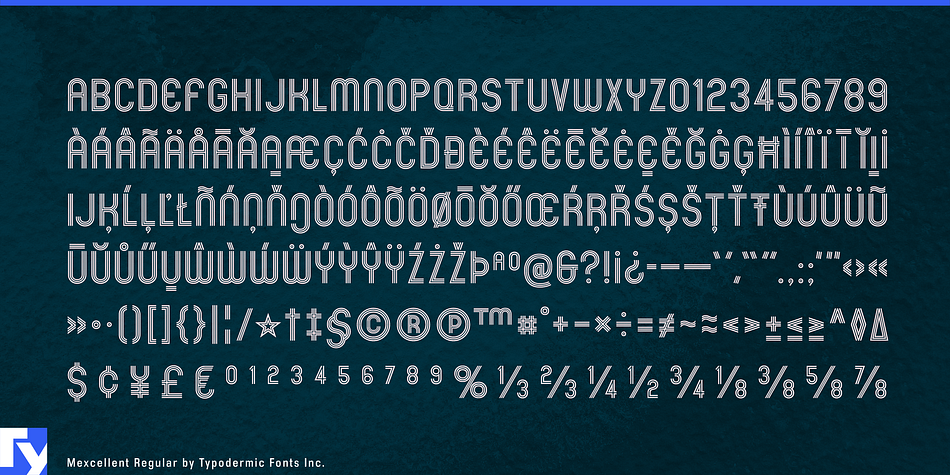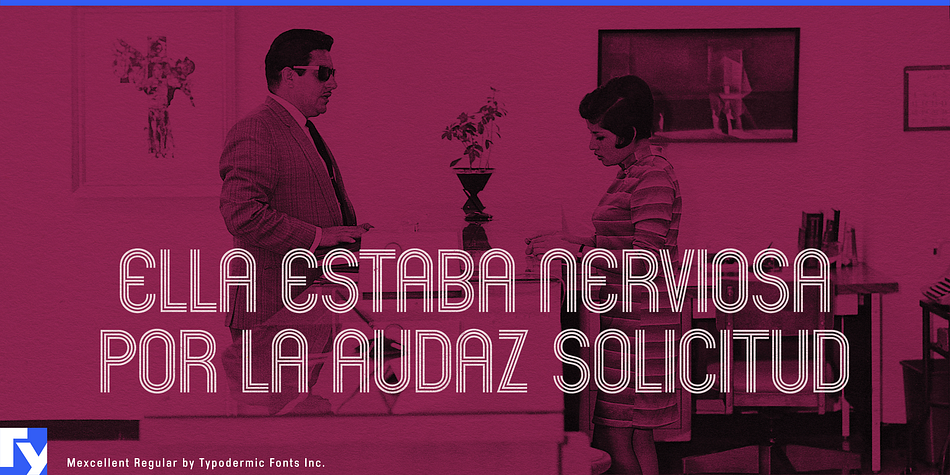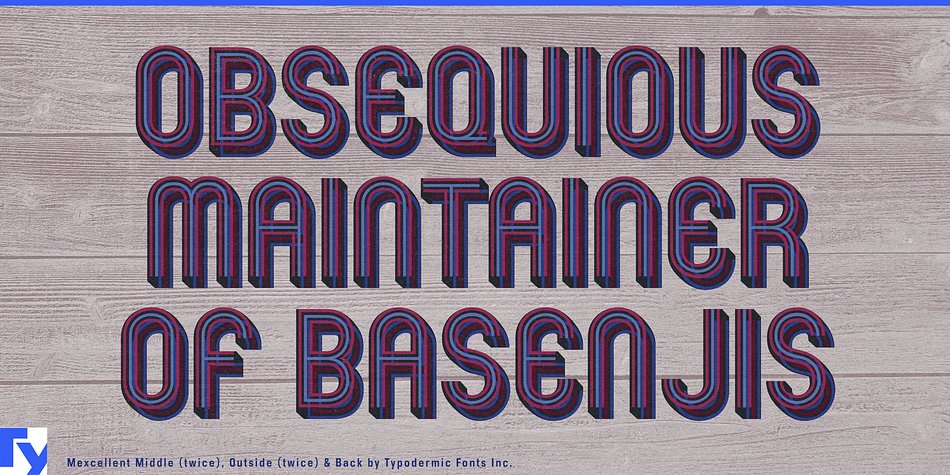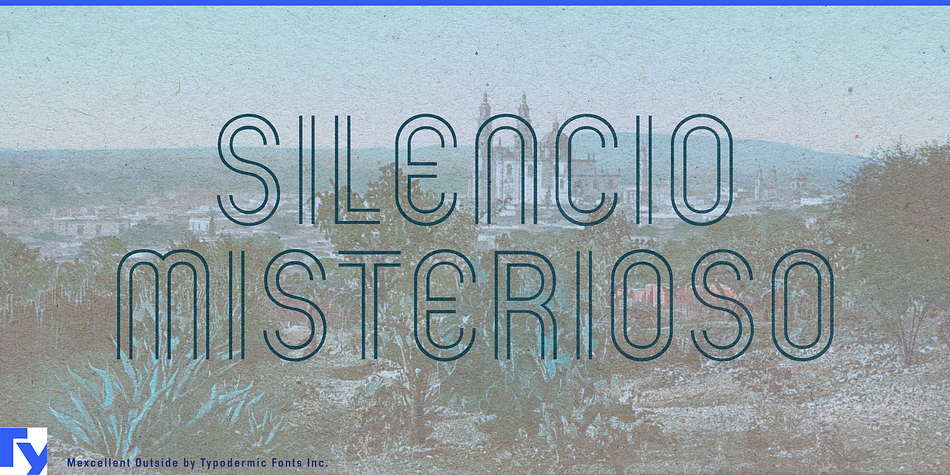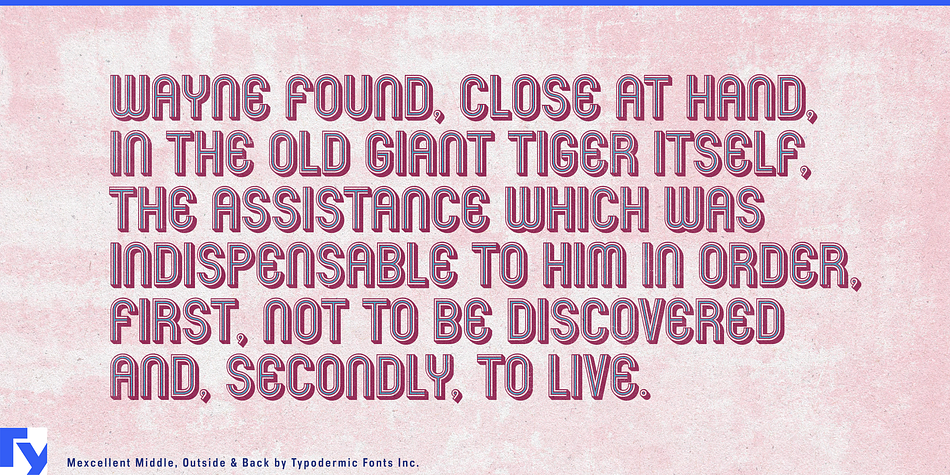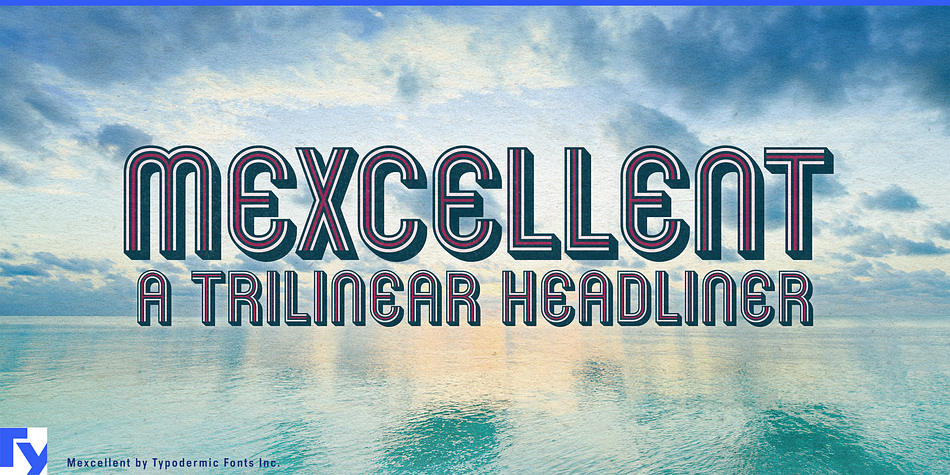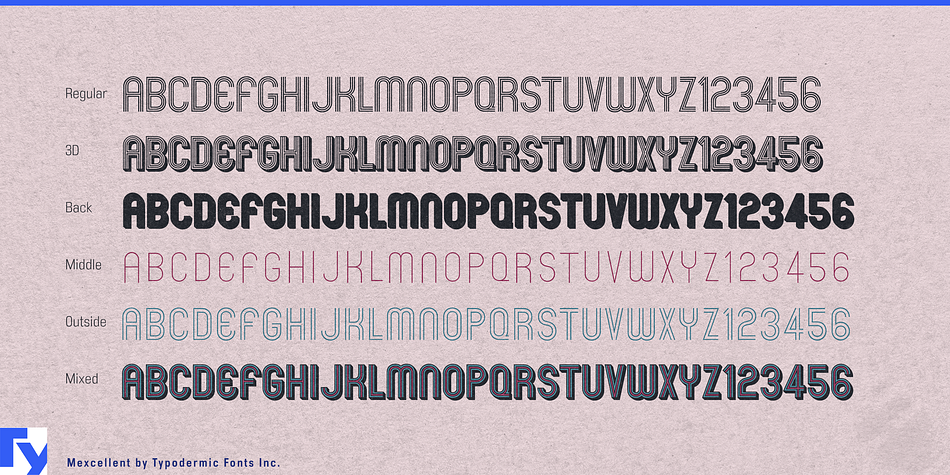
Mexcellent is a display sans font family. This typeface has five styles and was published by Typodermic Fonts Inc.
Mexcellent is a tri-linear stripe font. You can combine layers to create interesting color effects. Mexcellent Regular was designed with tighter spacing & vertical metrics than the other layers. If you want to stack layers on Mexcellent Back, use Mexcellent Middle and Mexcellent Outside instead.